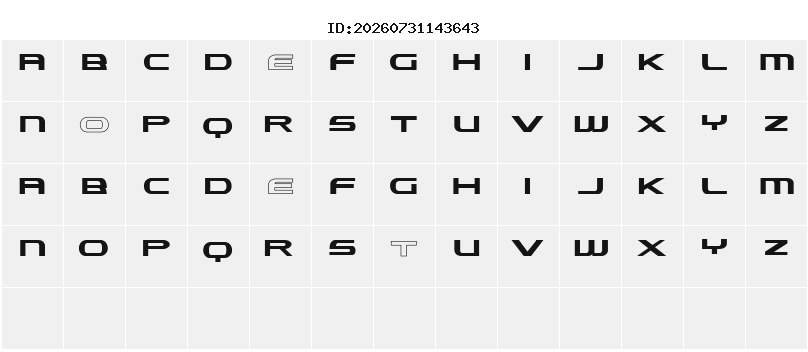
• Font Name: Lexust Demo
• Font Style: Demo
• Full Font Name: Lexust Demo
• PostScript Name: LexustDemo
About Lexust Demo.ttf
Lexust Demo.ttf is a modern, elegant sans-serif font designed for ultimate readability and visual harmony. Perfect for branding, headlines, web design, and print materials.